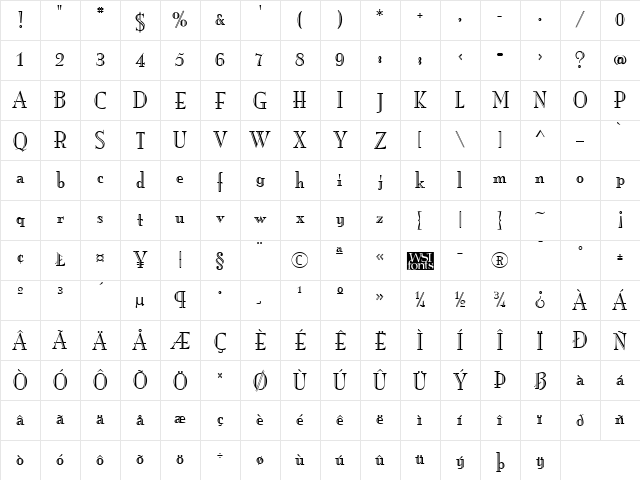
MonarchEngraved Regular Free Font
MonarchEngraved Regular
Design Context for MonarchEngraved
MonarchEngraved is built around its visual character rather than neutral utility - its distinctive forms are designed to make an impression at display sizes.
Font Pairing: Pair with a clean neutral sans-serif for body copy to let MonarchEngraved's character lead without overwhelming the composition.
Pro Tip: Use MonarchEngraved exclusively at display sizes - it was designed to be seen, not read at length. Let a neutral companion handle body copy.